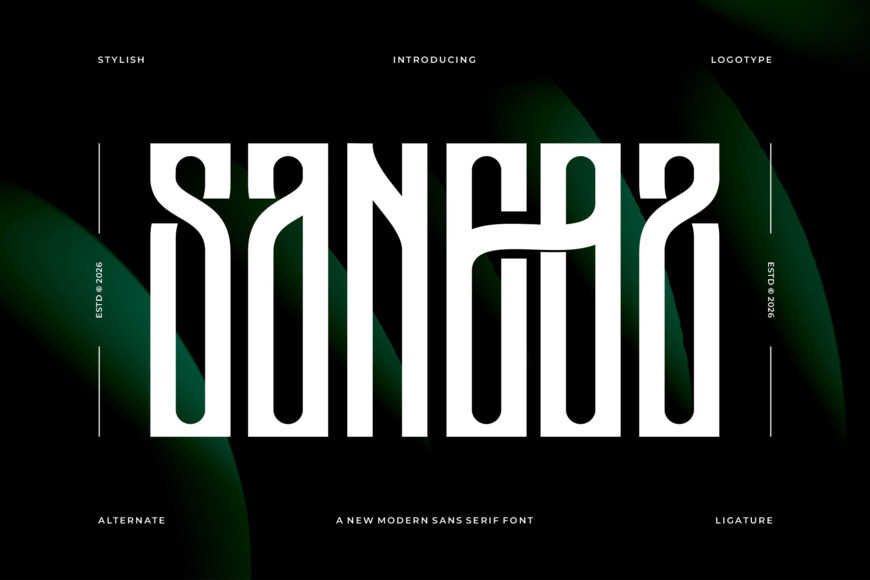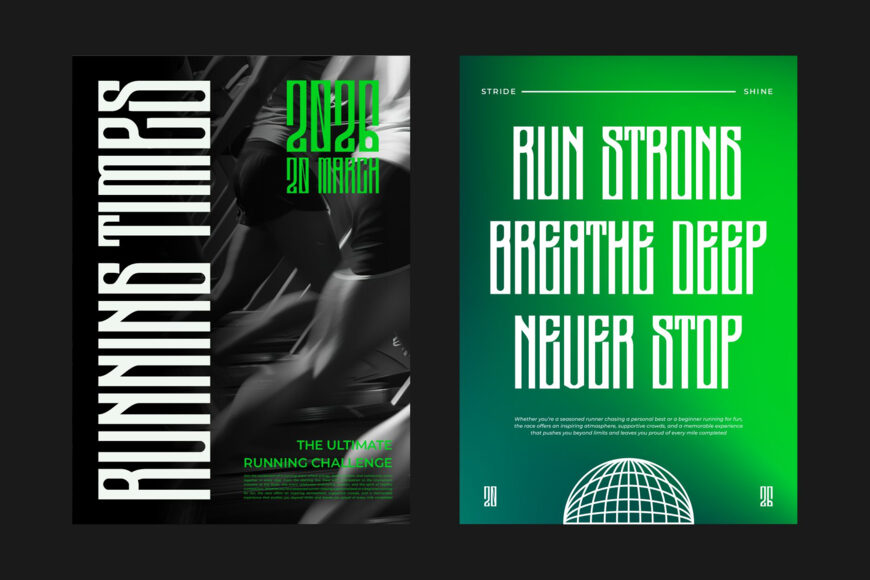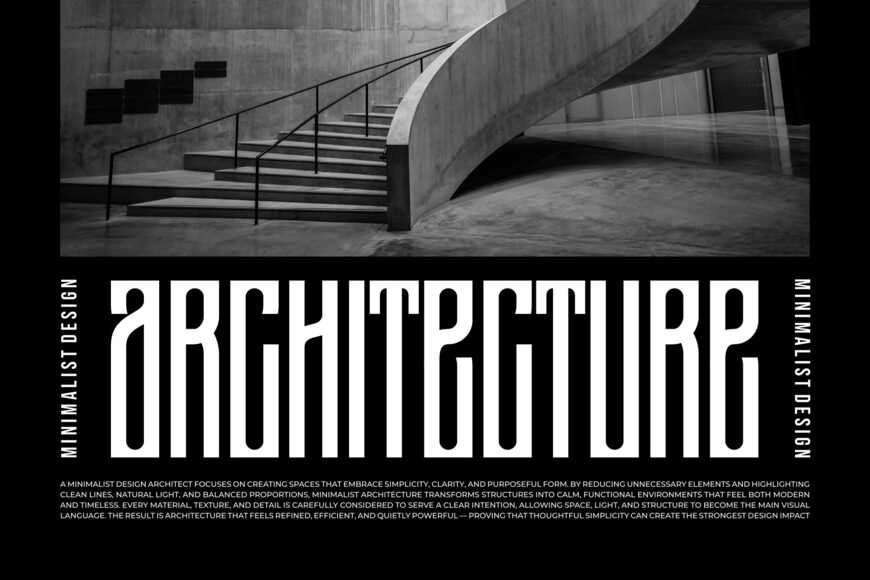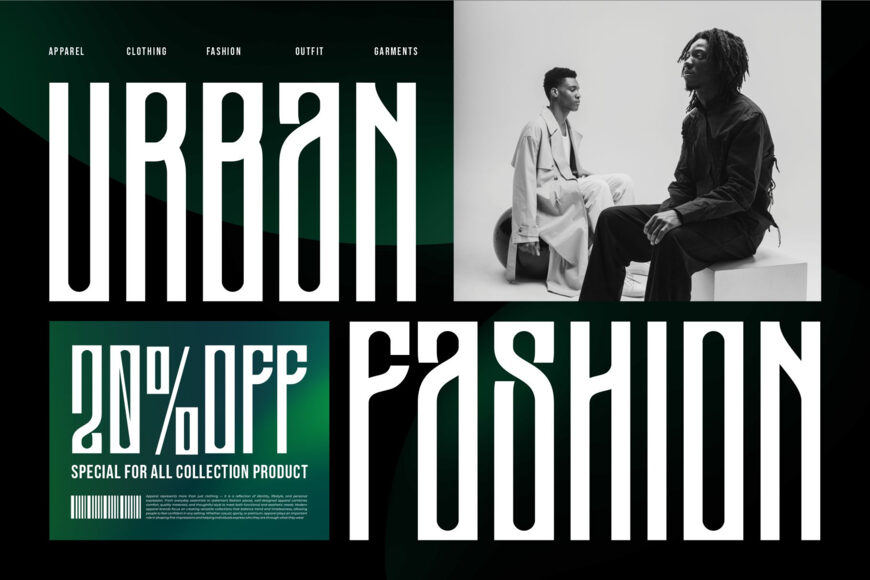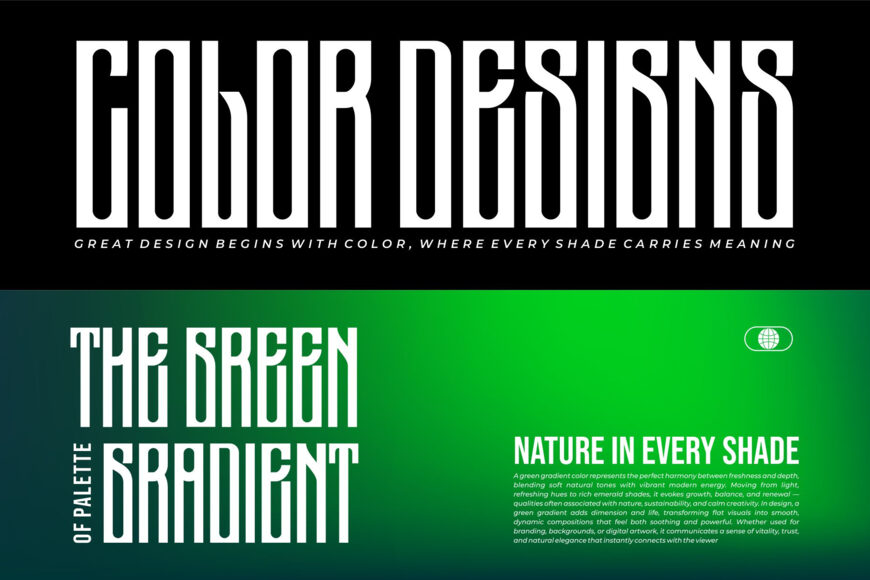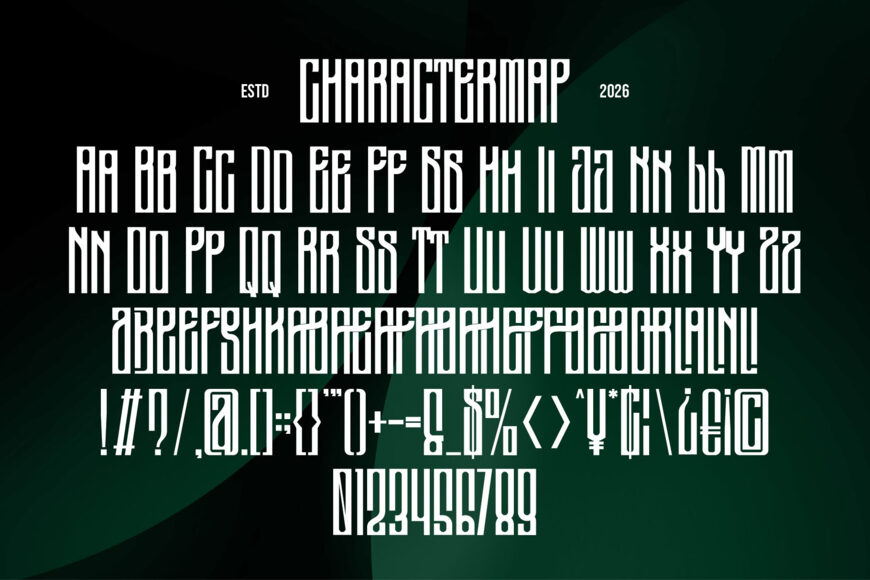
Saneoz Font
Introducing Saneoz, a tall sans-serif font with a modern, stylish, and trendy aesthetic. Its distinctive character makes it a versatile choice for a wide range of creative projects, including invitation cards, company logos, movie titles, business cards, book covers, brand identities, and more.